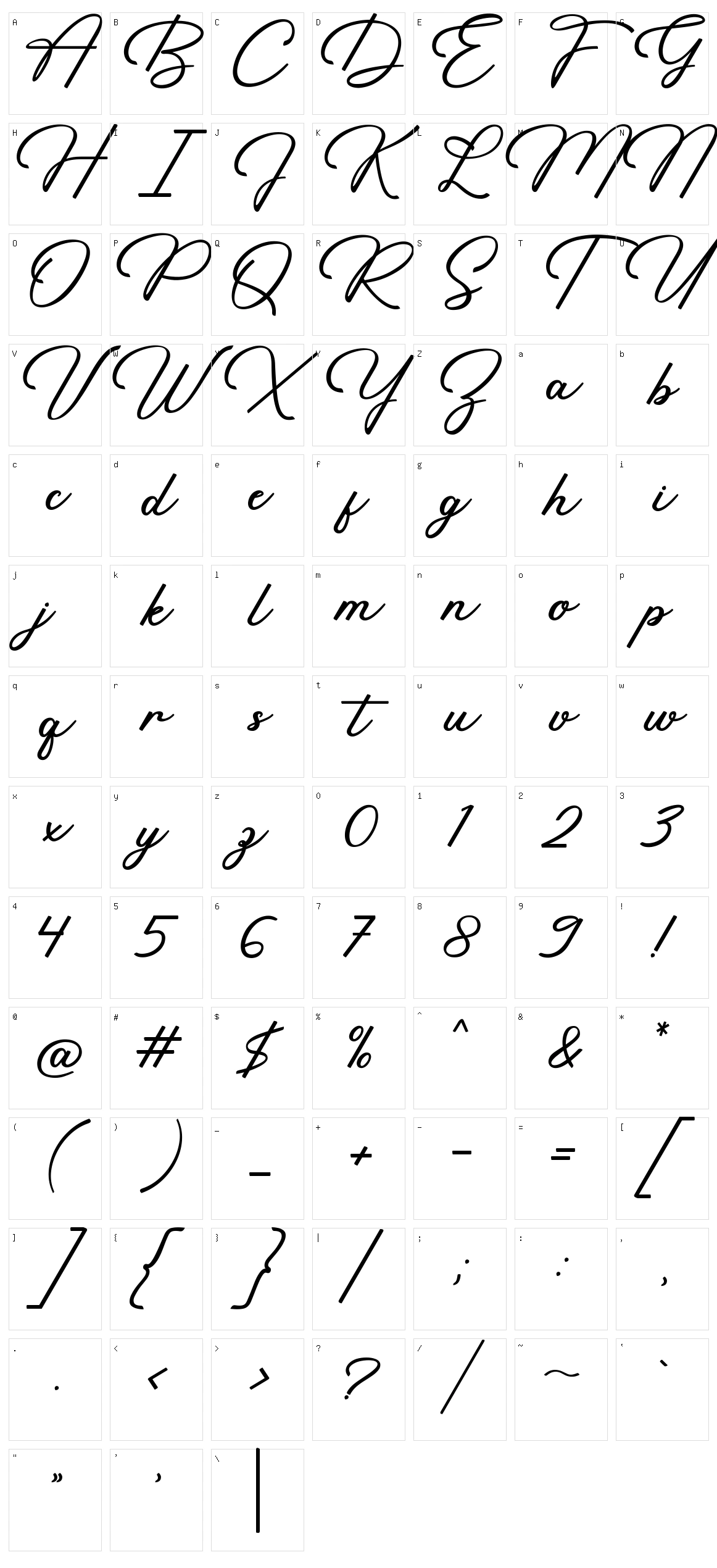
Rapidly is a stylish signature script typeface - A new, fashionable and super cool handwritten script font that makes your product look even more attractive, of course. Rapidly is made as closely as possible with a handwritten script to make it look more natural and suitable for application in any media.